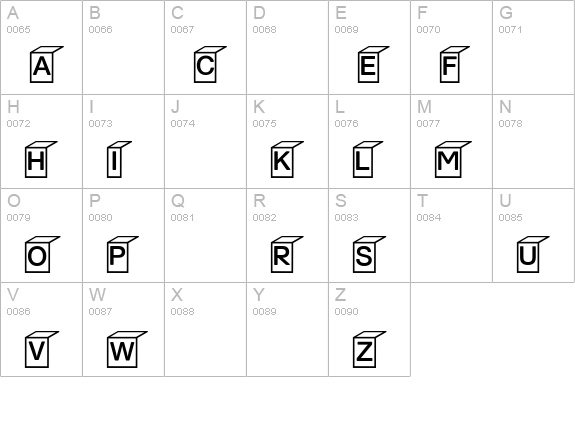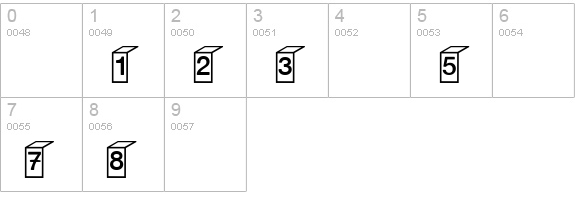
Bausteine Font Details
Bausteine font is a versatile and modern typeface that exudes elegance and sophistication. Its clean lines and geometric shapes make it perfect for a wide range of design projects, from logos to branding to editorial design. The font is characterized by its minimalistic yet impactful appearance, making it suitable for both digital and print applications. What sets Bausteine font apart is that it is available for free download at FontsMarket.com. This means that designers and creatives can easily access and use this stunning typeface in their projects without any cost. With its sleek and contemporary aesthetic, Bausteine font is sure to elevate the visual appeal of any design it is applied to. Embrace the beauty and versatility of Bausteine font today by downloading it for free at FontsMarket.com.